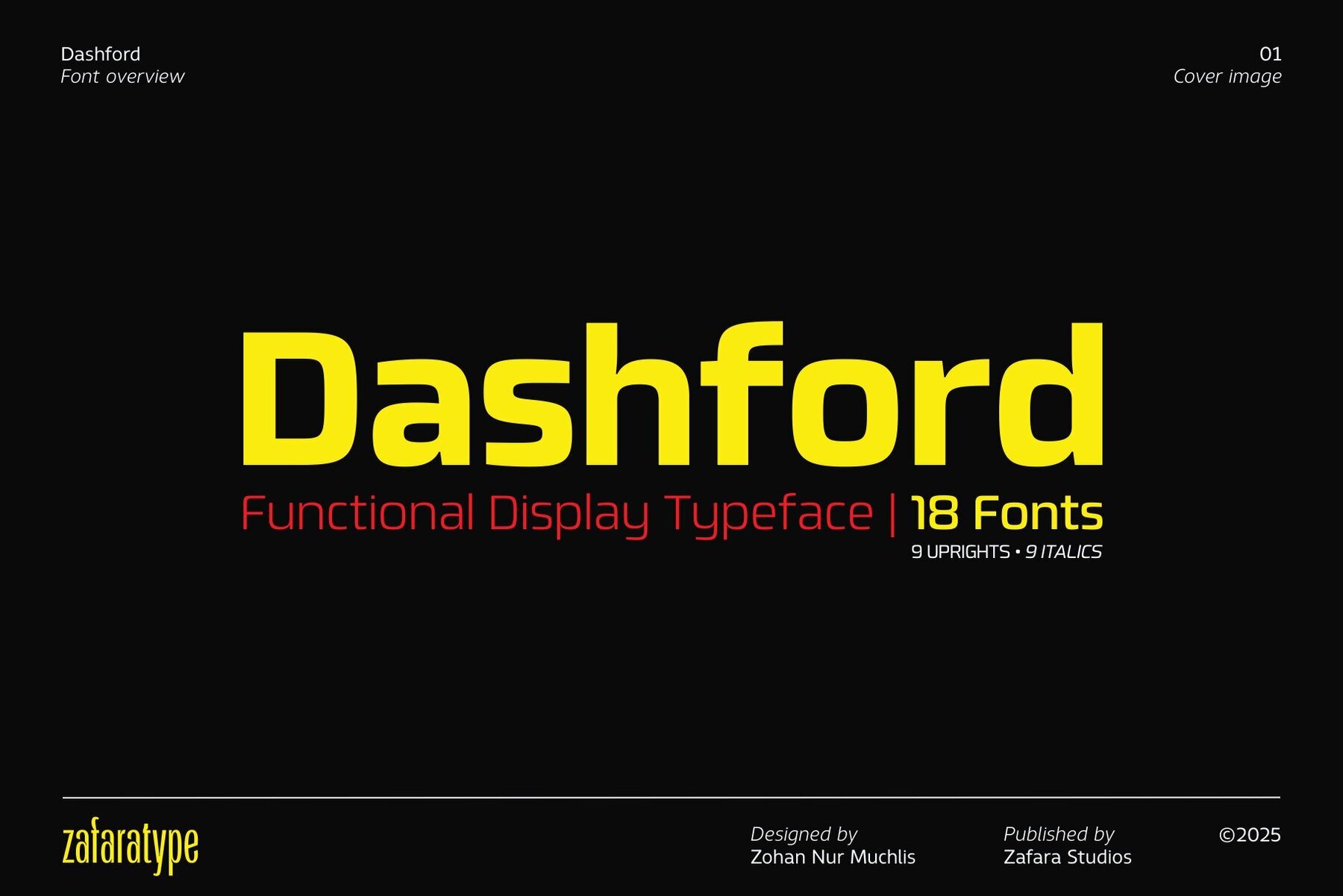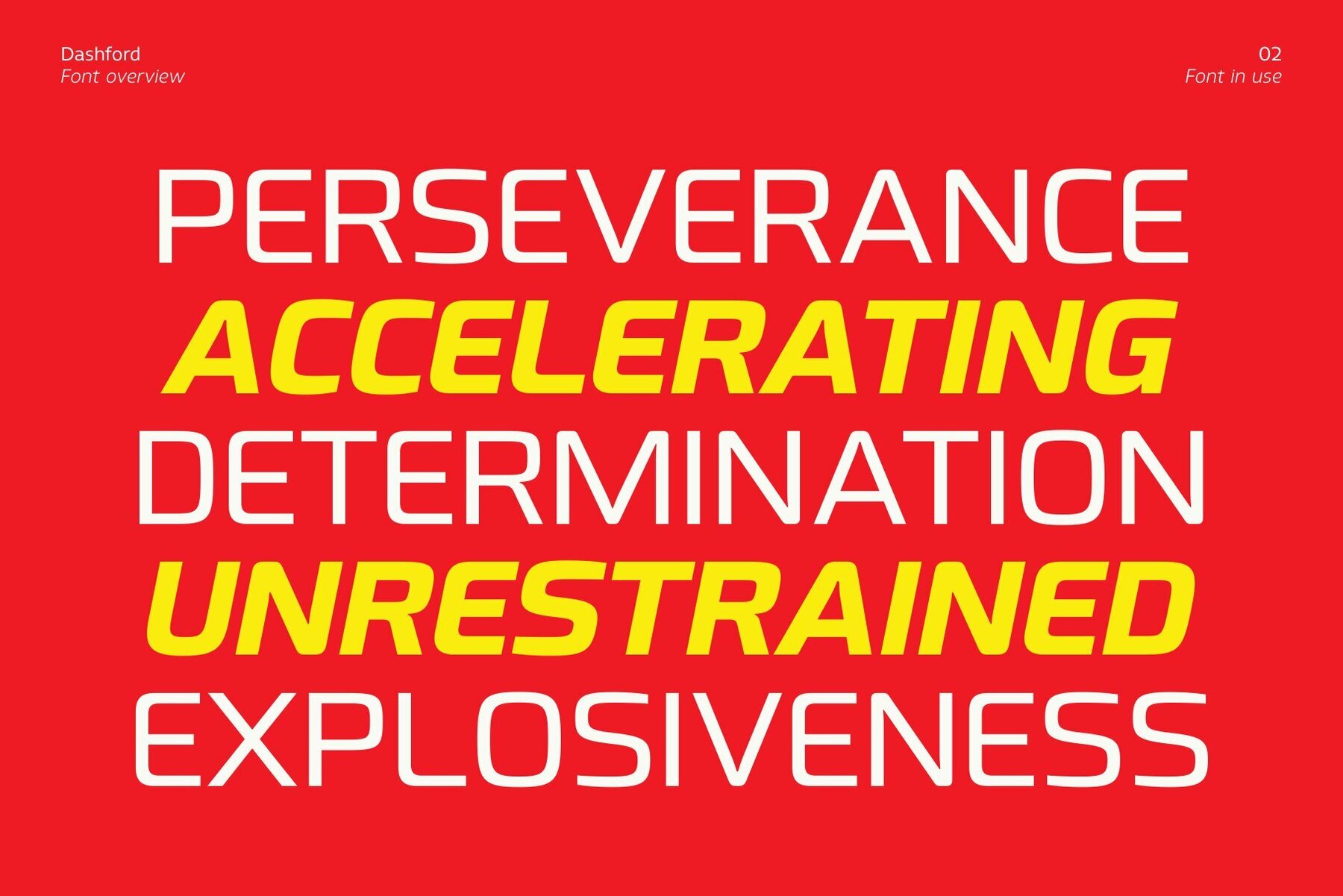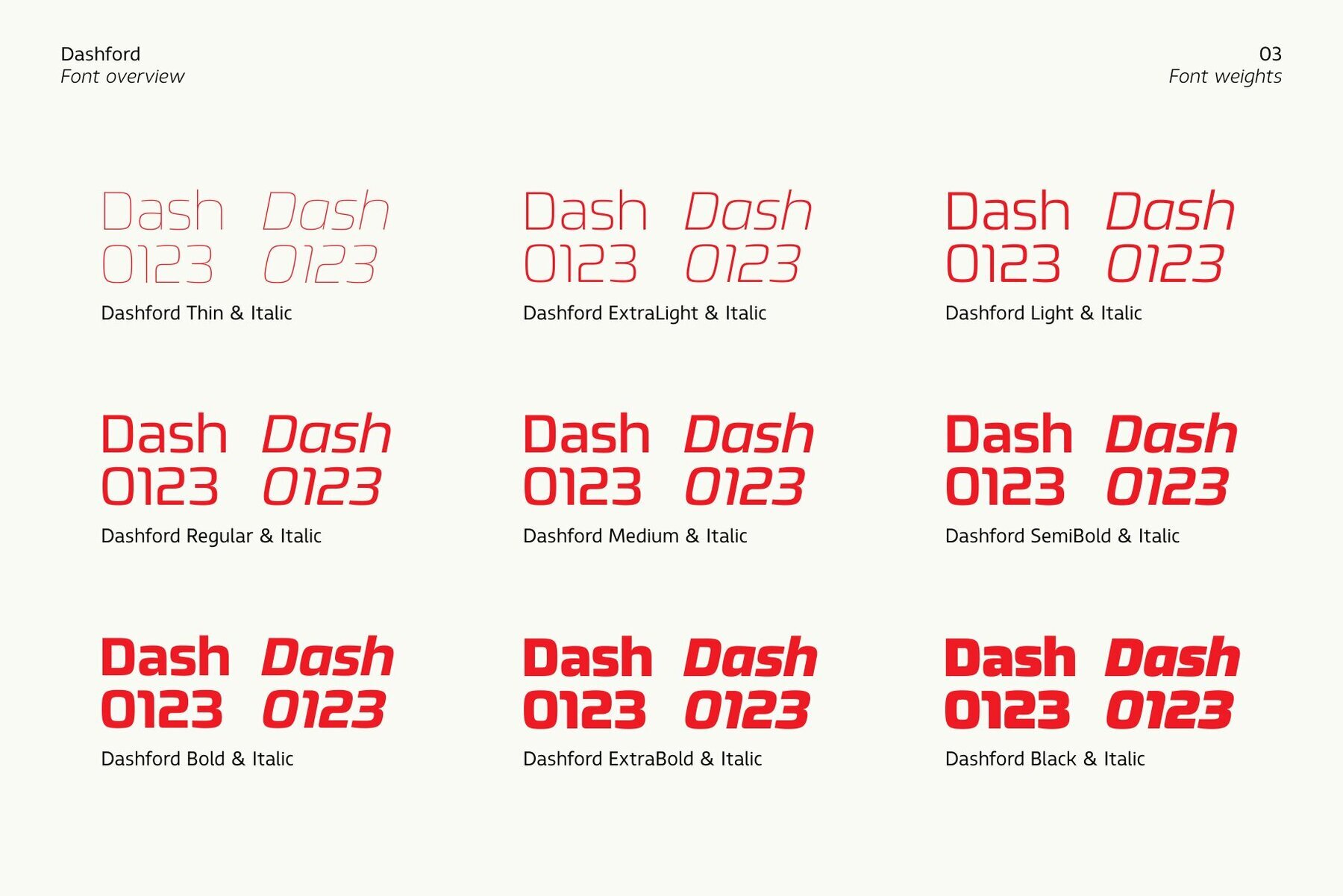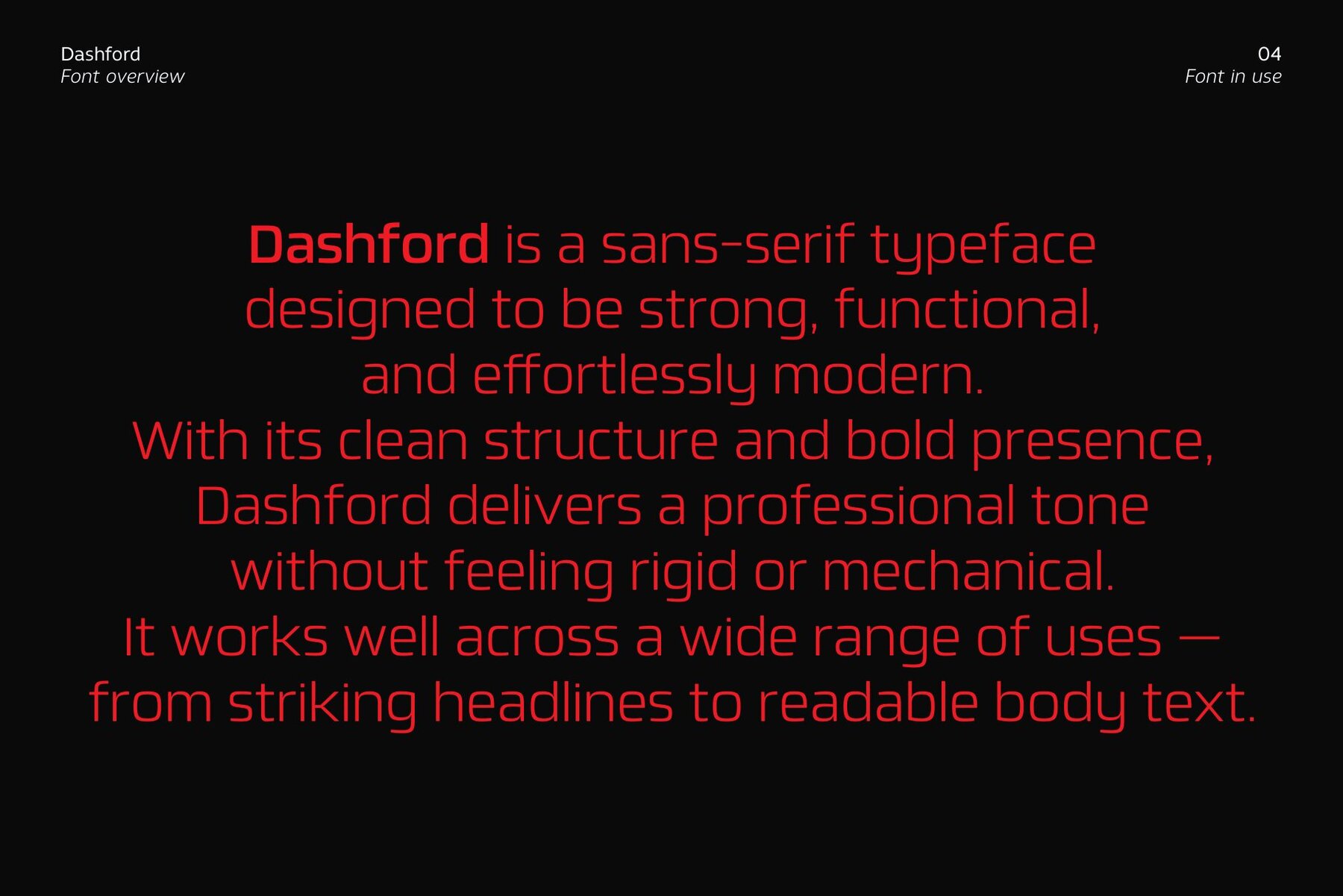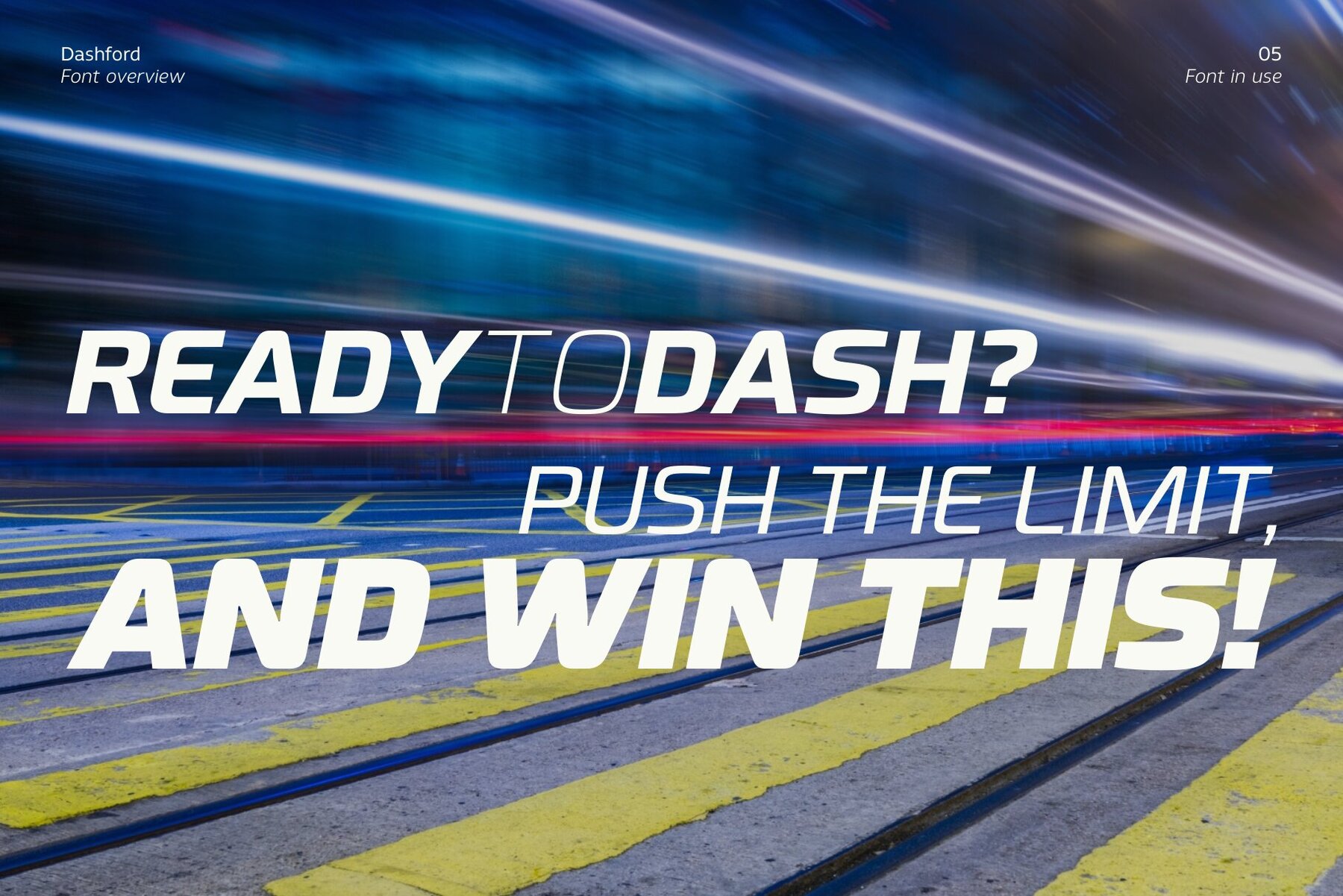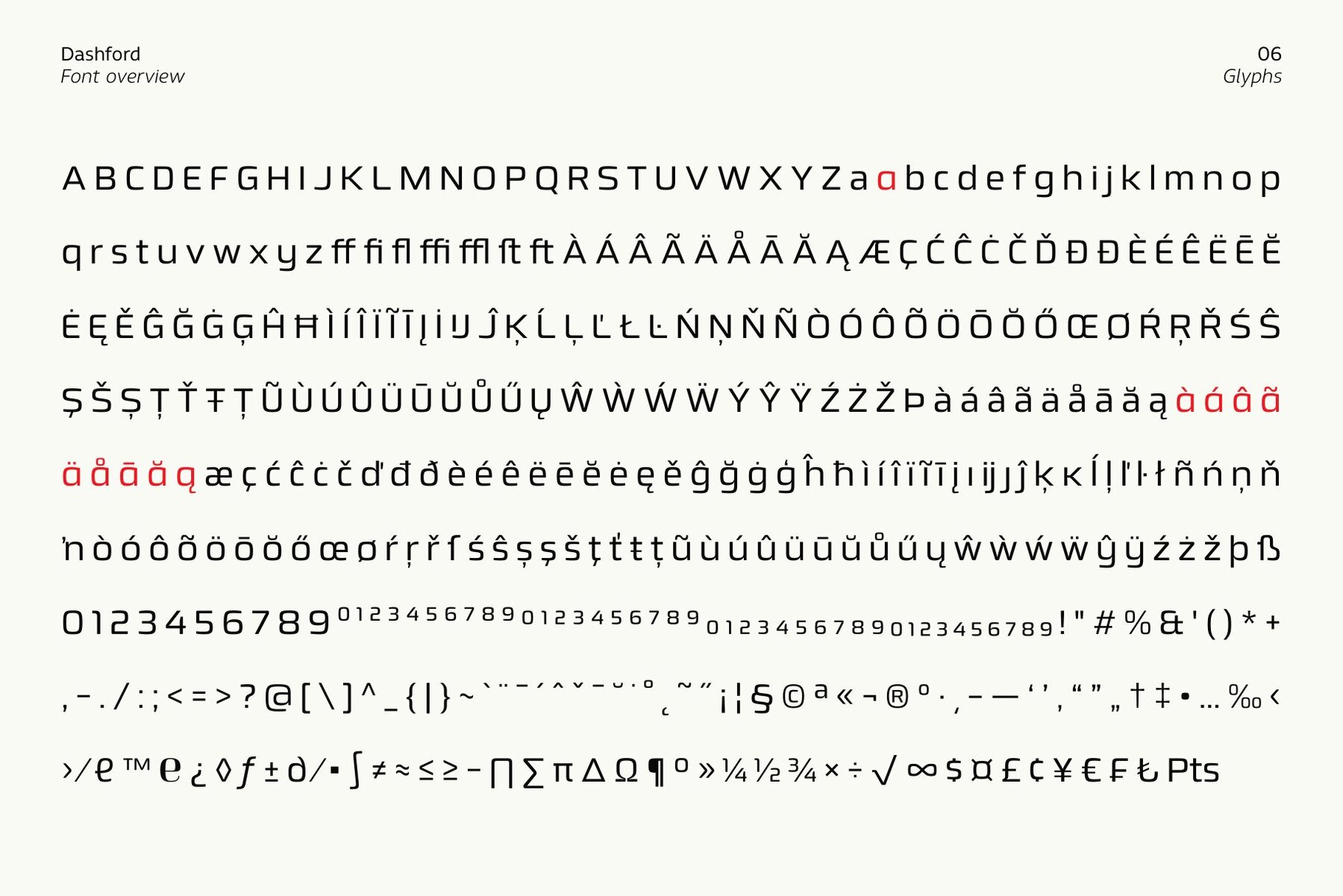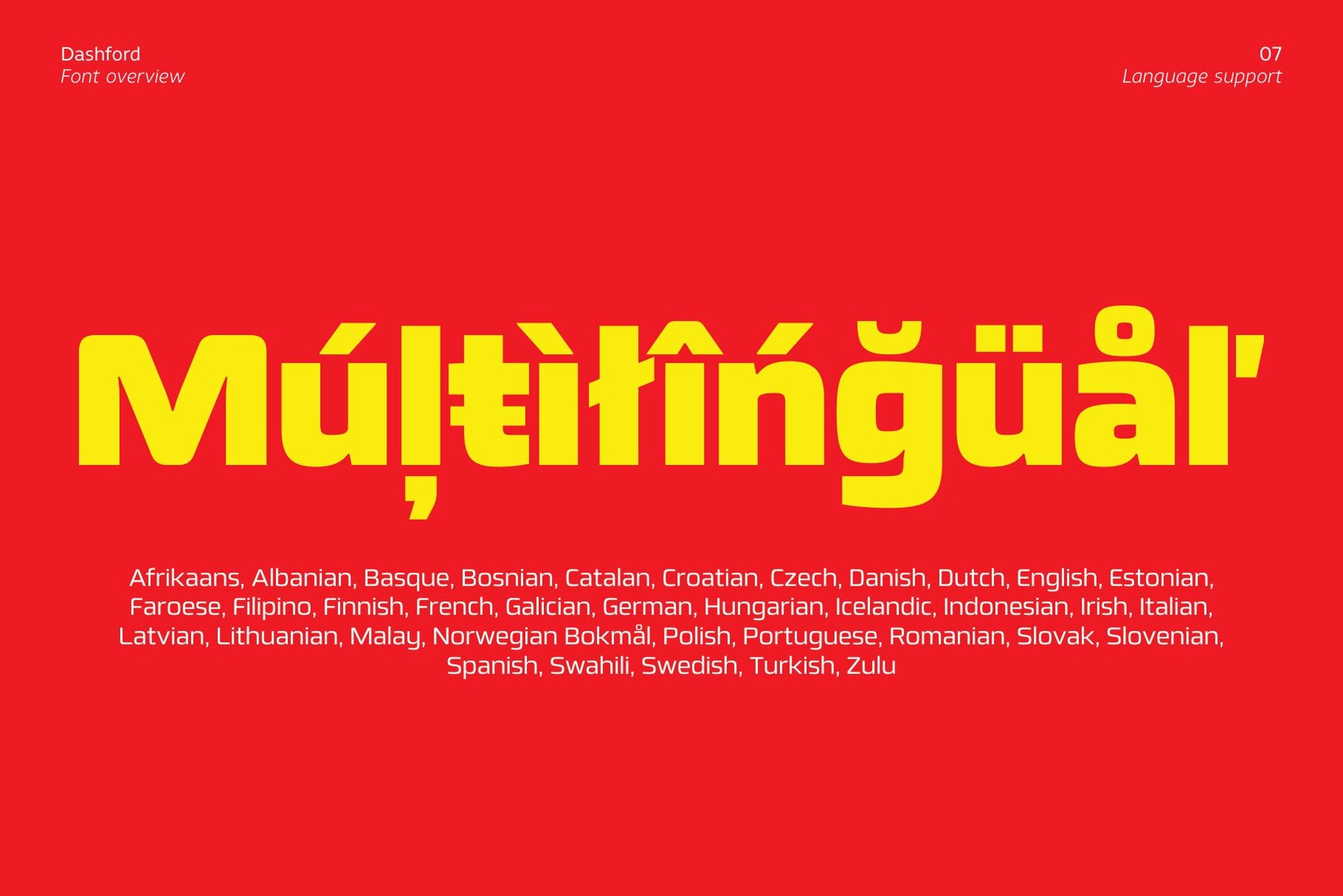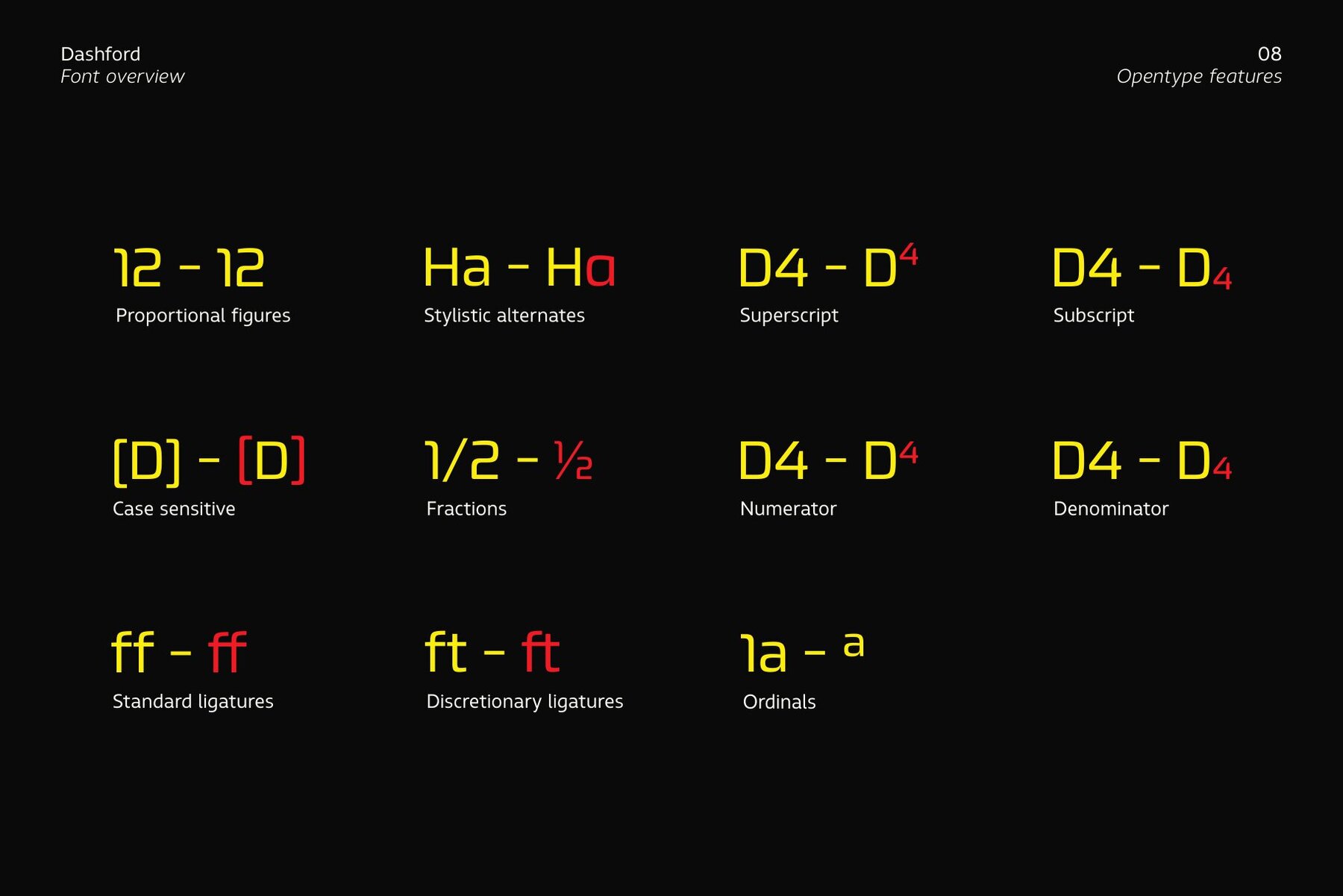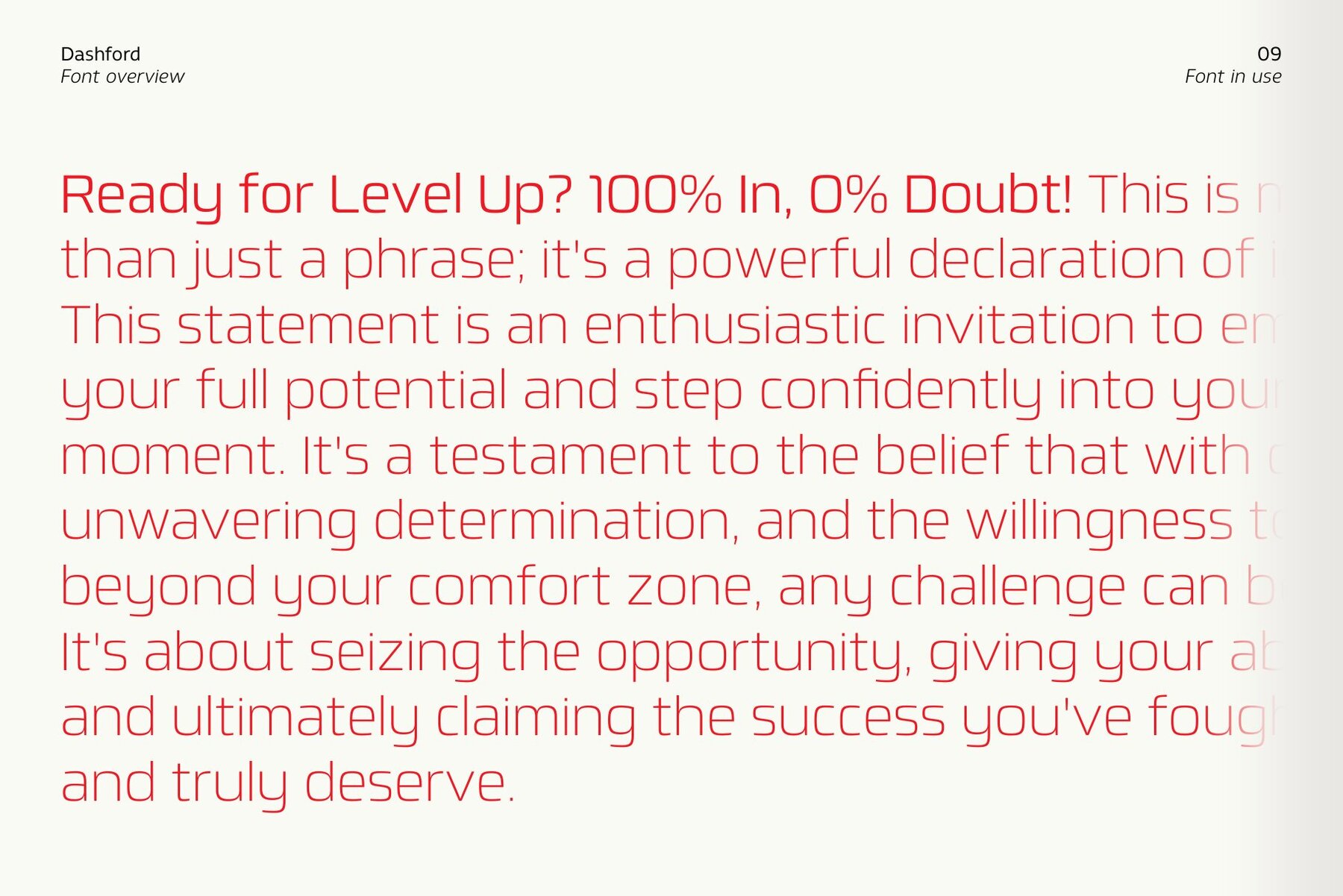
Dashford Font
Dashford, a sans-serif typeface, embodies strength, functionality, and modern aesthetics. With its clean lines and bold presence, it exudes a professional tone while avoiding rigidity. This versatile typeface thrives in numerous applications, from commanding headlines to clear body text. It features nine upright weights complemented by nine italics, offering extensive options for building cohesive design systems. Dashford's design marries robust geometric foundations with a discreet technological flair, making it ideal for modern visual needs such as branding, digital interfaces, editorial layouts, signage, and packaging. For designers seeking balance between strength and clarity, Dashford is an impeccable choice, aligning with projects requiring a modern, dependable, and ready-to-use visual tone.Dashford Typeface: Practicality Meets Modern Design